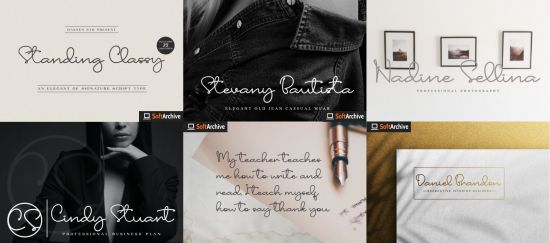
DesignOptimal - Standing Classy Font
DesignOptimal.com - Standing Classy Font
Standing Classy is a flowing handwritten font, described by an elegant touch, perfect for your favorite projects. Fall in love with its incredibly distinct and timeless style and use it to create spectacular designs!